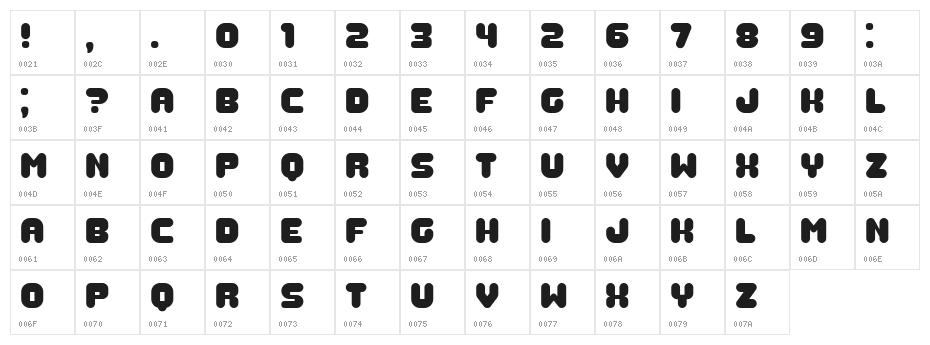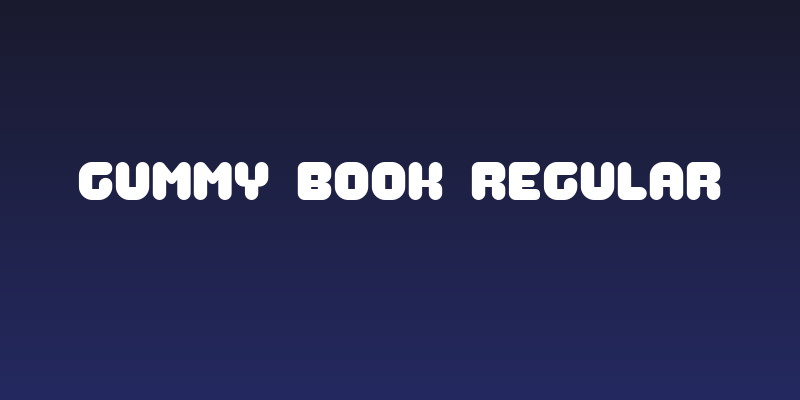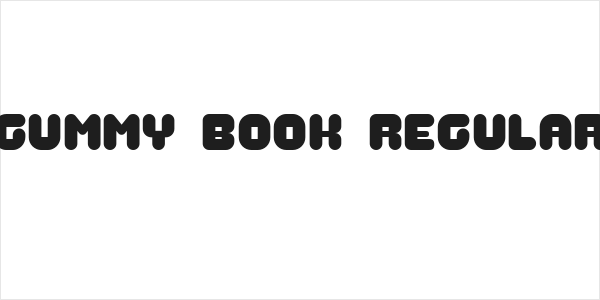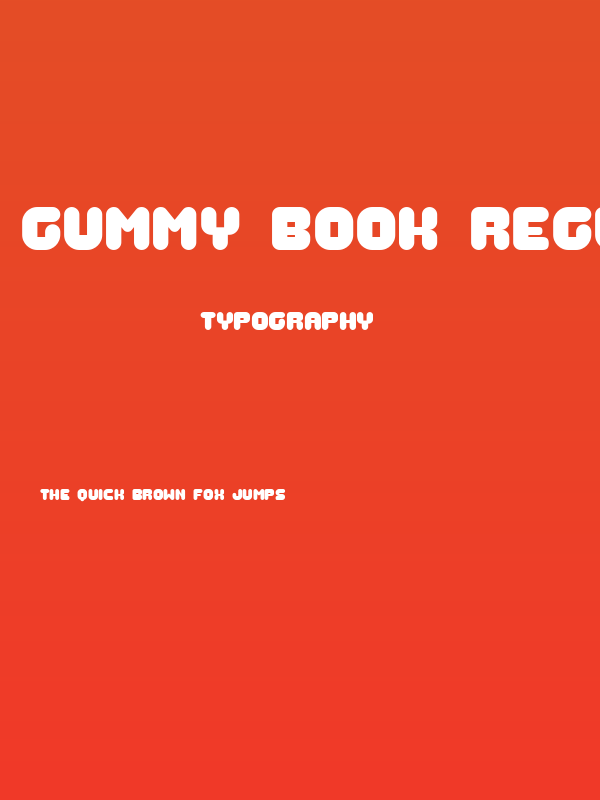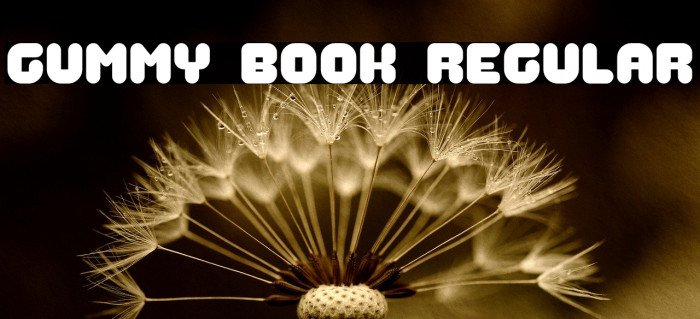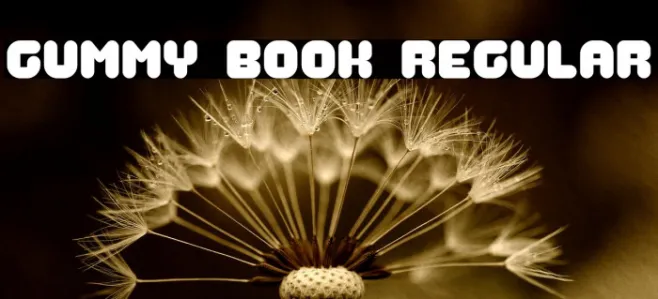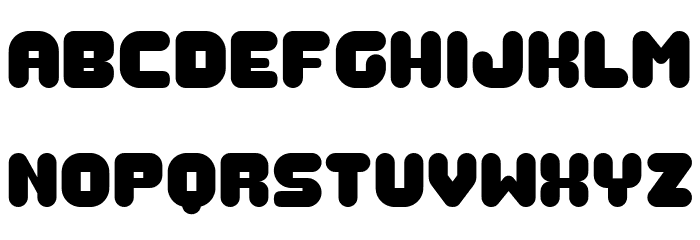
Gummy Book Regular Font
Gummy Book Regular Description
This font features a playful and bold design with rounded edges, giving it a soft and approachable appearance. The characters are uniformly thick, contributing to a cohesive and solid look. The uppercase and lowercase letters maintain a consistent style, with the lowercase slightly smaller but equally bold. The numbers are clear and easily distinguishable, matching the overall rounded aesthetic. Special characters are included, maintaining the same playful style. This font is ideal for projects that require a friendly and modern touch.
| Proposed Projects | Ideal for children's books, playful branding, casual invitations, and modern advertising. |